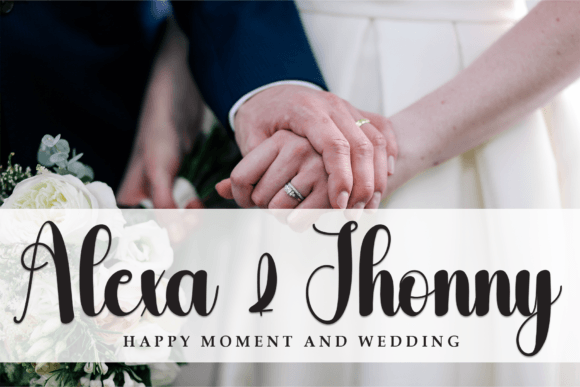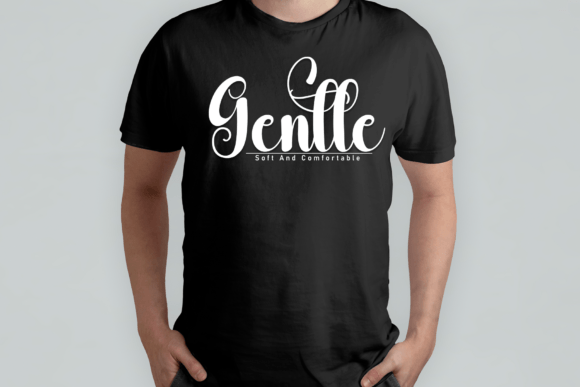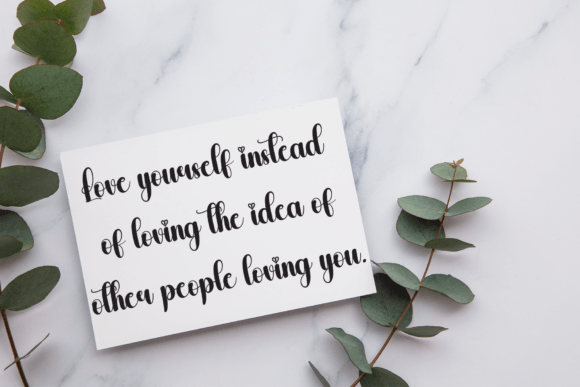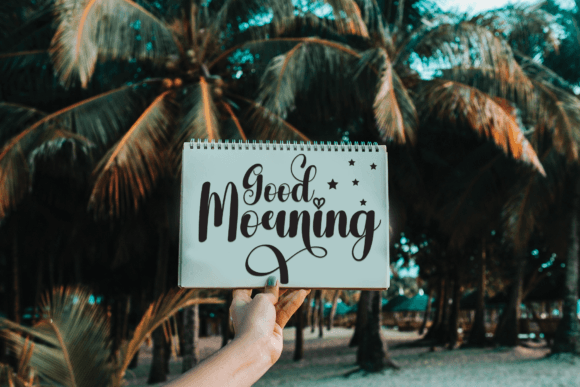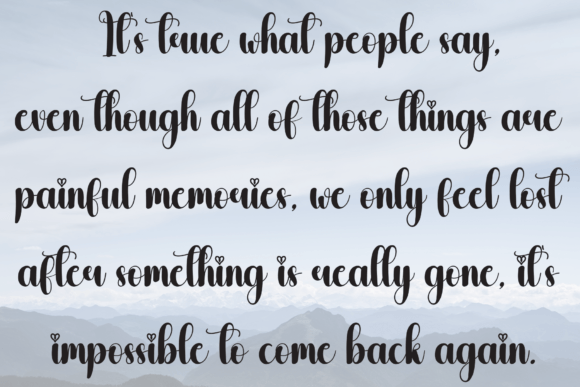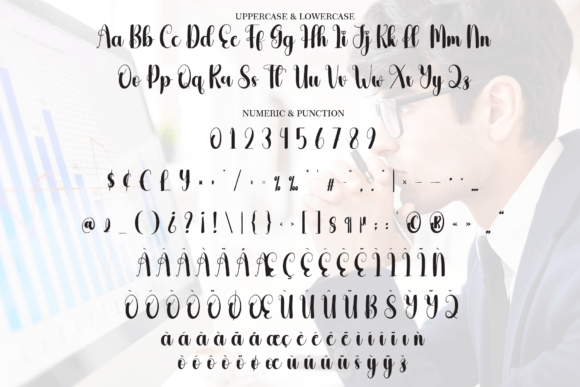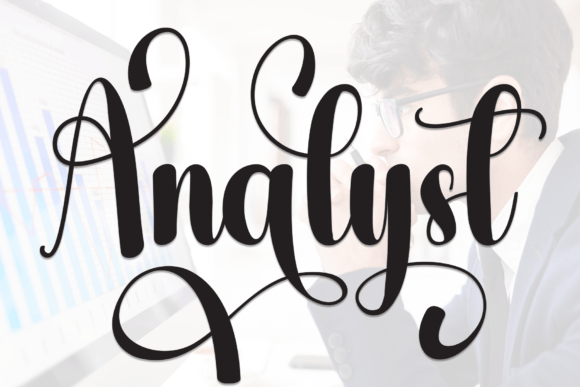
Introducing Analyst Font: The Sweet and Friendly Handwritten Font for Your Creative Projects
Are you a designer or crafter looking for a font that can add a personal touch to your work? Look no further than Analyst Font, a sweet and friendly handwritten font that’s perfect for creating beautiful and eye-catching designs. In this article, we’ll take a closer look at Analyst Font, its features, and how you can use it to elevate your creative projects.
What is Analyst Font?
Analyst Font is a handwritten font that’s designed to be both cute and fun. Its sweet and friendly style makes it ideal for writing wedding invitations, cards, or any other design that might need a lovely touch. Whether you’re creating a DIY project, a wedding stationery, or a social media graphic, Analyst Font is the perfect choice.
Key Features of Analyst Font
- Cute and Fun Design: Analyst Font has a playful and charming design that’s sure to capture the attention of your audience.
- Handwritten Style: The font has a handwritten style that gives it a personal and unique touch.
- Easy to Read: Despite its playful design, Analyst Font is easy to read and understand, making it perfect for body text and headings.
- Versatile: Analyst Font can be used for a wide range of design projects, from wedding invitations to social media graphics.
How to Use Analyst Font in Your Designs
Analyst Font is a versatile font that can be used in a variety of design projects. Here are some ideas to get you started:
- Wedding Invitations: Use Analyst Font to create beautiful and elegant wedding invitations that set the tone for your special day.
- Greeting Cards: Create personalized greeting cards for birthdays, holidays, or special occasions using Analyst Font.
- Social Media Graphics: Use Analyst Font to create eye-catching social media graphics that showcase your brand’s personality.
- DIY Projects: Add a personal touch to your DIY projects, such as scrapbooking, journaling, or crafting, with Analyst Font.
Tips for Using Analyst Font Effectively
Here are some tips to help you use Analyst Font effectively in your designs:
- Pair it with Other Fonts: Analyst Font pairs well with other fonts, such as serif or sans-serif fonts, to create a visually appealing design.
- Use it for Headings and Body Text: Use Analyst Font for both headings and body text to create a cohesive look.
- Experiment with Colors: Analyst Font looks great in a variety of colors, so don’t be afraid to experiment and find the perfect color scheme for your design.
Analyst Font is a sweet and friendly handwritten font that’s perfect for designers and crafters looking to add a personal touch to their work. With its cute and fun design, versatility, and ease of use, Analyst Font is an excellent choice for a wide range of design projects. Whether you’re creating wedding invitations, social media graphics, or DIY projects, Analyst Font is sure to elevate your designs and make them stand out.